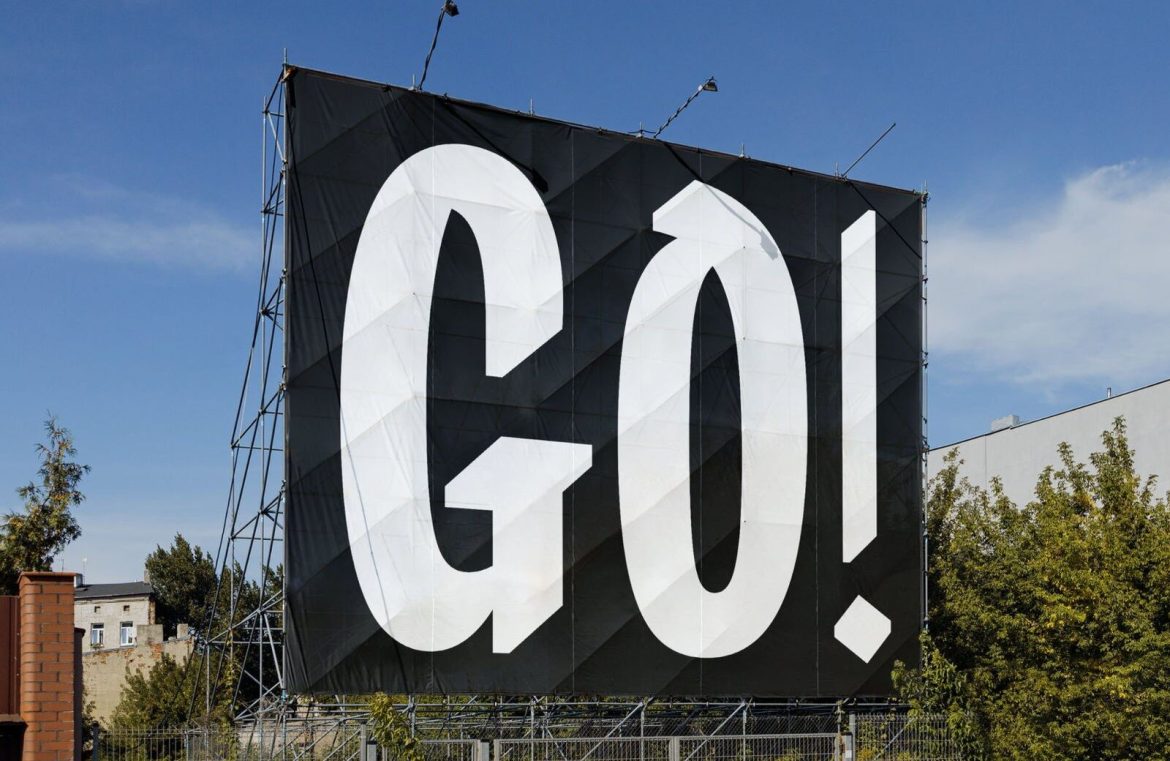
Typography plays an essential role in the world of design, having the power to elevate the mundane to the sublime. To fuel your creativity, we compile a handpicked selection of the finest typefaces unveiled in the past month. Our March roundup showcases a diverse mix of robust letterforms, avant-garde typefaces, and designs delicately tinged with Art Nouveau influences. Dive in and get inspired!
Merisca
Behold Merisca, a slender serif suited for high-end branding, impactful posters, or magazine layouts. Its alternate characters infuse a touch of sophistication, making each shape stand out.
Family
The meticulously crafted Family typeface harks back to the Clearface design of the early 1900s, reimagined for the digital age while preserving its historic charm.
Natri
Calligraphy inspires the striking Natri, with its uniform angled lines that conjure a dimensional flair when scaled up, ideal for making a statement.
Atica
Rooted in German geometric typography traditions, Atica is a study in precision engineering. Its family now gains ultra-lightweight styles, expanding its utility.
Acorn
The streamlined Acorn sans-serif melds simple geometry with a hint of vintage flair, presenting a novel interpretation of Art Nouveau minimalism.
Inflated Foil
Defying convention, Inflated Foil employs color bitmap technology to create a glossy, 3D-effect font that resembles metallic foil balloons, ready to make your posters pop.
TT Commons Pro
The versatile TT Commons Pro now features new compact designs and a variable option, making this geometric sans-serif more adaptable than ever for various design tasks.
MC Belotra
MC Belotra exudes charm with its soft curves and low-contrast strokes, crafting a display face that balances boldness with a welcoming ease.
Aberford
Channel the rugged feel of westerns with Aberford, a font that embodies the spirit of cowboy boldness—ideal for brands associated with whisky, denim, or hardware.
Prelo Pro
The refreshed Prelo Pro expands upon its predecessor’s reputation for on-screen readability and neutral design, ensuring seamless pairing with larger display fonts.
Ducktail
Blending display quirks with sans-serif practicality, Ducktail introduces angular brush-calligraphy accents for a unique typographic character.
Sonja Zanet
The playful curves of Sonja Zanet exude a warm-hearted vibe, making it an excellent fit for editorials and eye-catching posters alike.
Neureal
The innovative Neureal unleashes a reverse-contrast design born from computer-generated distortions, available in both regular and monospaced variants.
Figra
With its rounded corners and smooth contours, Figra brings a touch of softness to the sans-serif category, perfect for contemporary branding endeavors.
Kanakira
The dynamic Kanakira plays with ink traps to imbue its sans-serif form with a three-dimensional illusion, ideal for editorial settings.